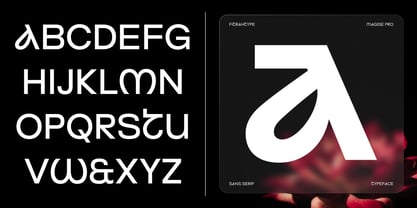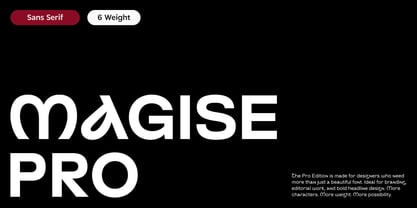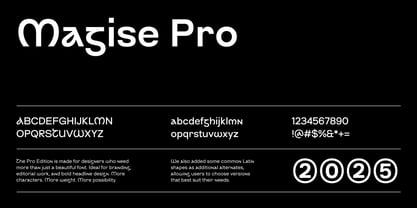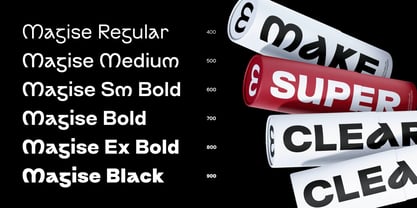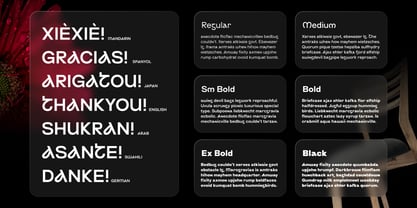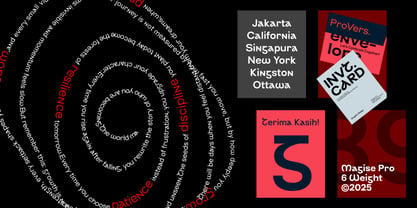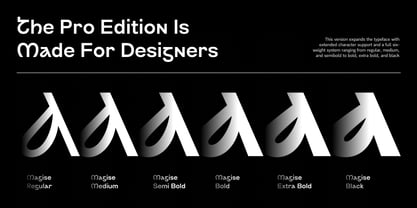
Magise Pro Variable
von Fitrah Type
Die Schriftfamilie Magise Pro Variable wurde von Moch Fitrah Hidayat entworfen und von Fitrah Type veröffentlicht. Magise Pro Variable enthält 1 Stile. Mehr über diese Familie
Magise Pro is a contemporary typeface that draws inspiration from classic uncial and half-uncial letterforms, seamlessly blending ancient manuscript aesthetics with modern design principles. Featuring bold shapes and expressive curves, Magise Pro offers a unique balance of historical charm and contemporary readability. This versatile typeface is ideal for a variety of applications, including branding, logos, editorial design, packaging, and posters, making it the perfect choice for any creative project that requires a distinctive and character-driven typographic style. It features six weights ranging from Regular to Black. With its rich heritage and clean Latin forms, Magise Pro stands out in any design context.
Designer: Moch Fitrah Hidayat
Aktuelle Foundry: Fitrah Type